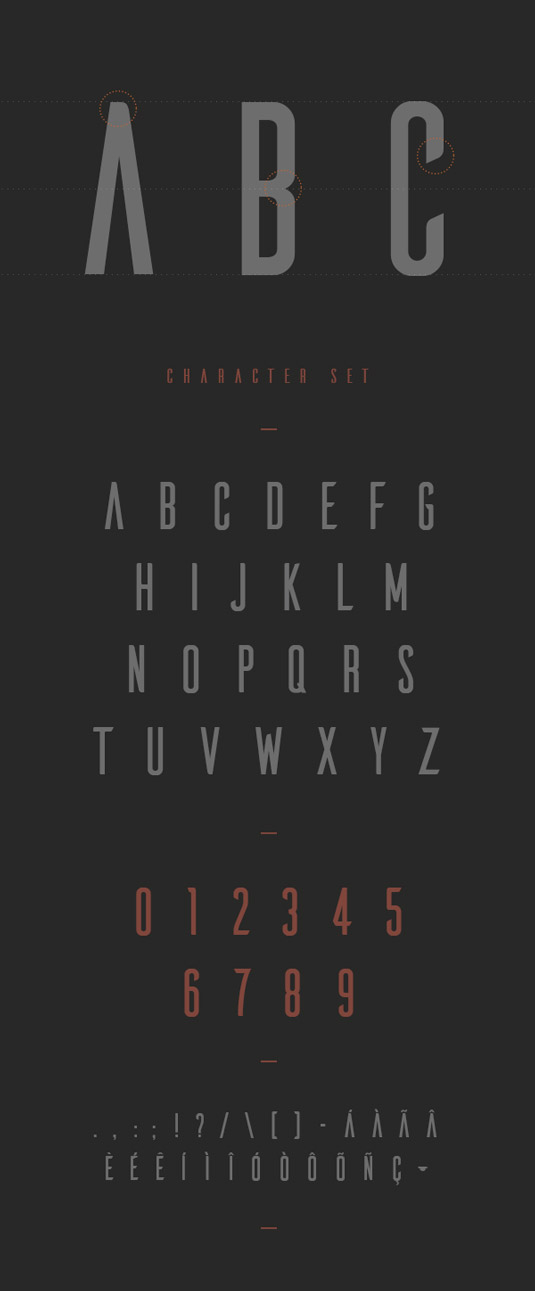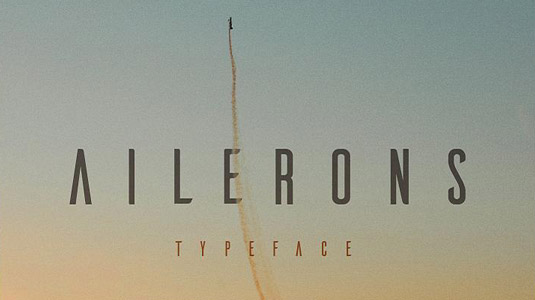
Font of the day: Ailerons
Every day we showcase the best fonts on the web. Today it's Ailerons by Adilson Gonzales de Oliveira, which is free for personal use.
Ailerons by Adilson Gonzales de Oliveira
Inspired by aircraft models from the 1940s, Ailerons typeface was created by Brazilian designer Adilson Gonzales de Oliveira. Designed for an experimental project of airmodels, Ailerons is now available for personal use.